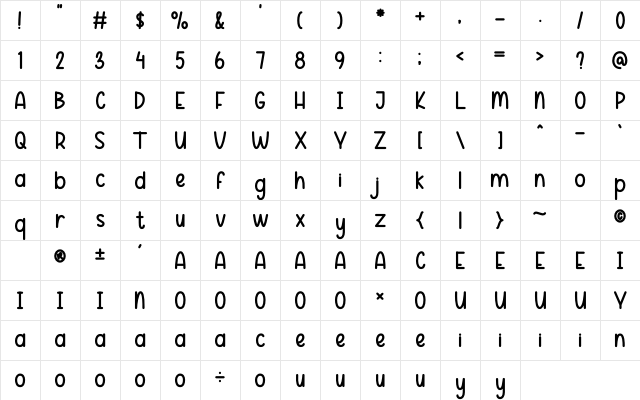
Happy Diary Display Regular
Foundry: Fillo Graphic
Designer: Nopianti
Complete Happy Diary Display Regular glyph index. Displaying only characters natively supported by Happy Diary Display Regular font.
Design Context for Happy Diary Display
Happy Diary Display is built around its visual character rather than neutral utility - its distinctive forms are designed to make an impression at display sizes.
Font Pairing: Pair with a clean neutral sans-serif for body copy to let Happy Diary Display's character lead without overwhelming the composition.
Pro Tip: Use Happy Diary Display exclusively at display sizes - it was designed to be seen, not read at length. Let a neutral companion handle body copy.